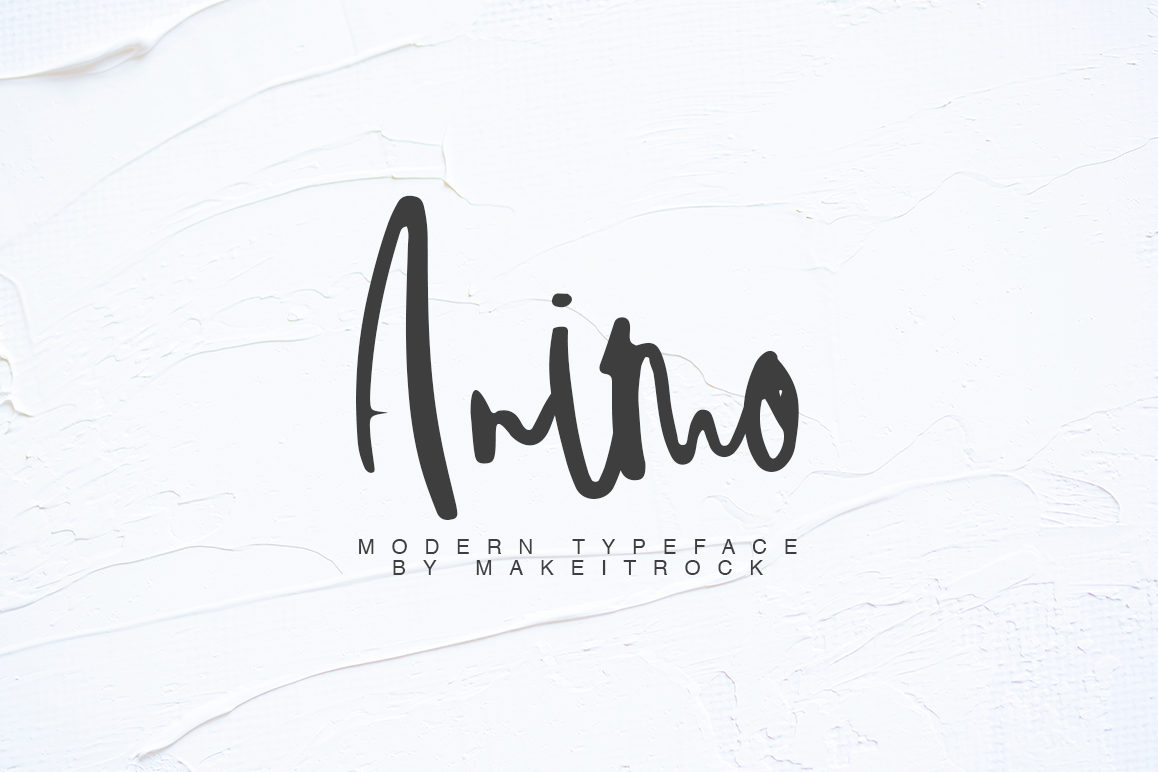
ANIMO
ANIMO - a new fresh handmade calligraphy font.
Very suitable for greeting cards, branding materials, business cards, quotes, posters, and more!This font are perfect for wedding postcard. Or you can create perfect and unique design of your logo, blog, stationery, marketing, magazines and more :)